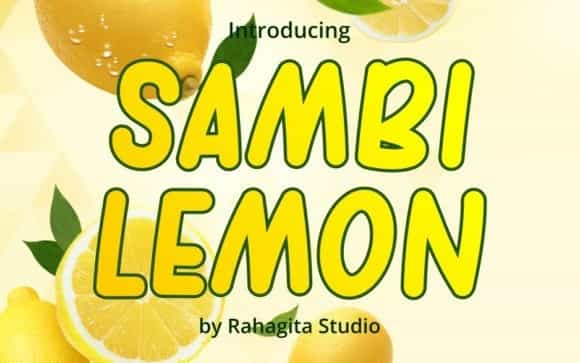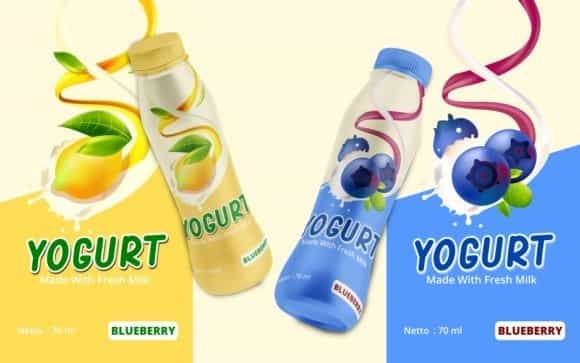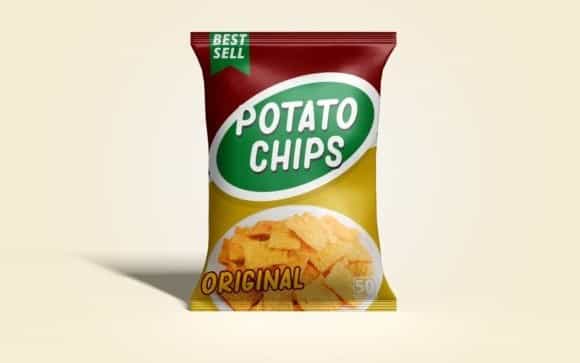
Sambi Lemon is a sweet and smiling display font. This beautiful and one of a kind all caps font is the perfect topper for any DIY project! Sambi Lemon is a great uppercase font that can be used for your many awesome projects like branding, packaging, poster, comic, flyers and more.